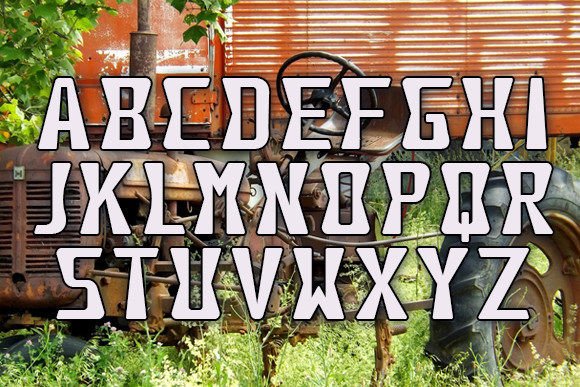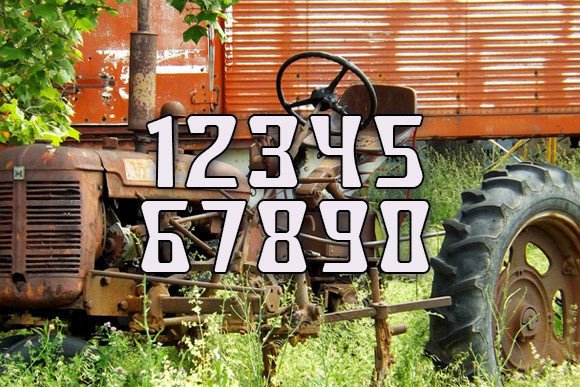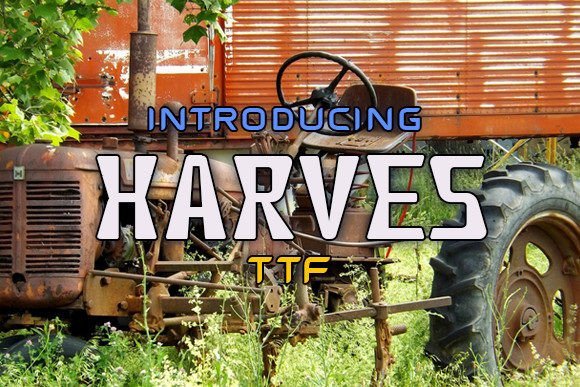
Introduction to Harves Font
Harves is an awesome display font that will look amazing on any of your designs.
Use this font on posters, flyers, and banners .
Key Features of Harves Font
Why Choose Harves Font?
Harves Font offers exceptional quality and versatility, making it a valuable addition to your design toolkit. Whether you’re creating for personal projects or commercial use, Harves Font delivers professional results.